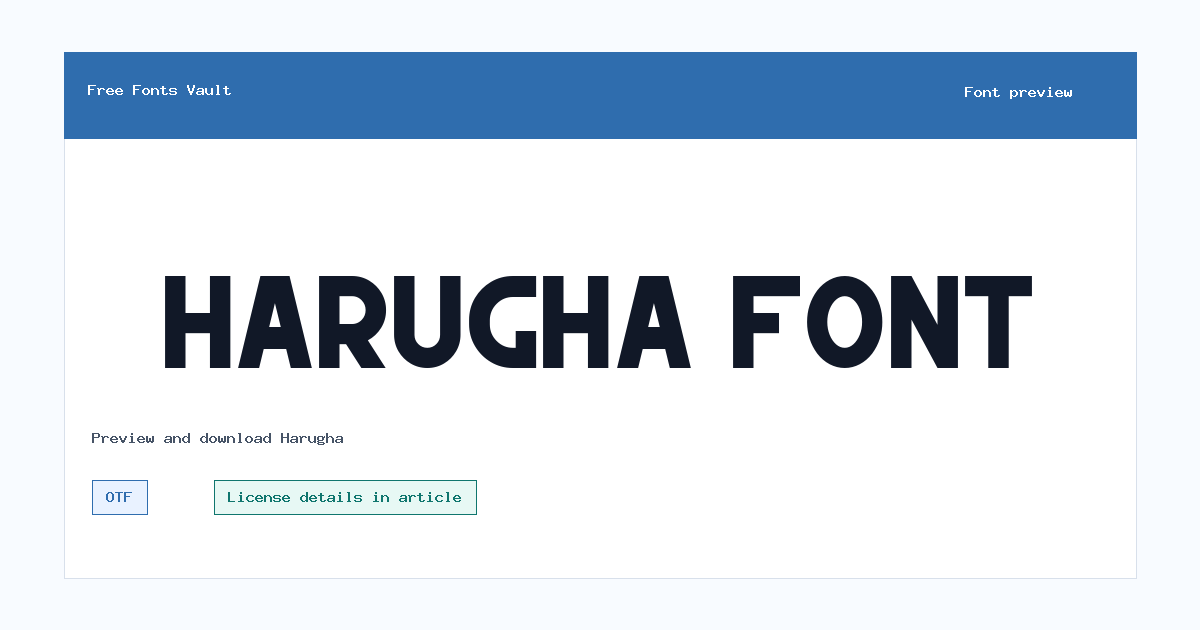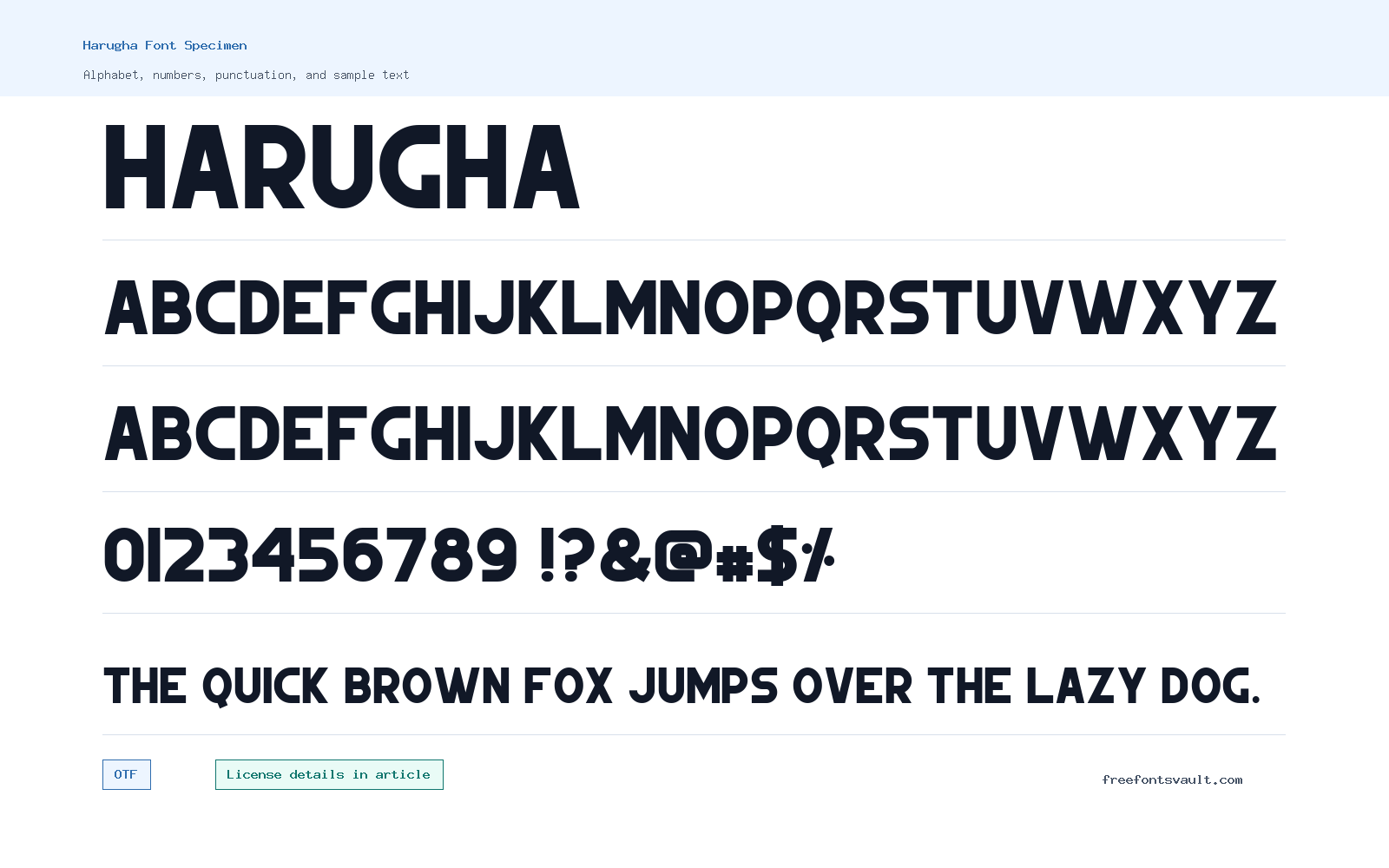
Harugha
Harugha is a bold decorative sans display font with a playful, uneven rhythm that works best when the words need to stand out quickly.
About Harugha Font
Harugha has a chunky display look with lively letter shapes rather than a plain, neutral sans style. Its irregular rhythm gives short words more personality, making it a good choice for creative headlines, poster titles, social media graphics, thumbnails, label concepts, and branding mockups where the type is part of the visual style.
Use Harugha at larger sizes and test your exact wording in the preview before downloading. Decorative display fonts can change a lot from word to word, especially with mixed letter shapes, spacing, and punctuation. For longer text, menus, captions, or descriptions, pair it with a clean sans serif so Harugha can handle the main title while the supporting copy stays easy to read.
• Bold decorative sans lettering with a playful display feel
• Posters and event-style headline graphics
• Social media posts, thumbnails, and cover images
• Creative branding mockups and logo concepts
• Package labels, stickers, and short promotional text
Keep Harugha for short, high-impact words and view it at the size you plan to use. If a headline feels too busy, increase spacing slightly or combine it with a simpler sans serif for subtitles and body copy. Before downloading, type the exact headline or brand words into the preview and check awkward letter pairs such as double vowels, wide capitals, and punctuation. If the design needs a cleaner finish, use Harugha only for the main word and set dates, prices, addresses, and disclaimers in a neutral sans serif. This also helps you spot whether the decorative rhythm supports the message or distracts from it. Shorter layouts will usually look cleaner.
What kind of font is Harugha?
Harugha is a decorative sans serif display font. It is made for short, eye-catching text rather than long reading.
What is Harugha best used for?
It works well for posters, social graphics, thumbnails, labels, branding mockups, and creative headlines where the type needs a bold visual role.
Is Harugha good for body text?
No. Its decorative shapes are better at large sizes. Use a simple sans serif for paragraphs, captions, and longer information.